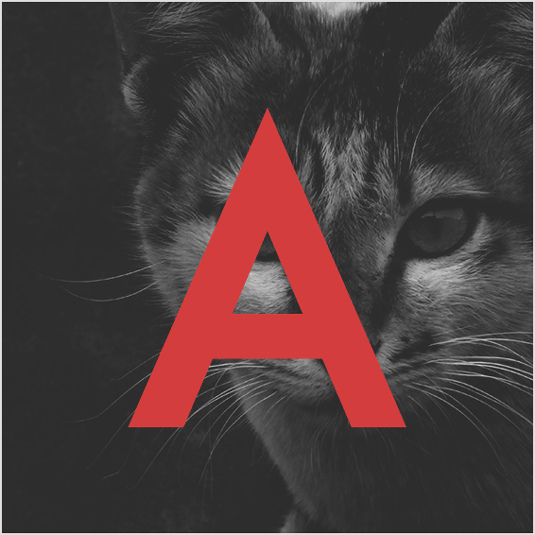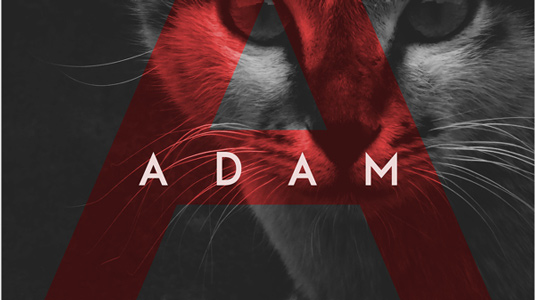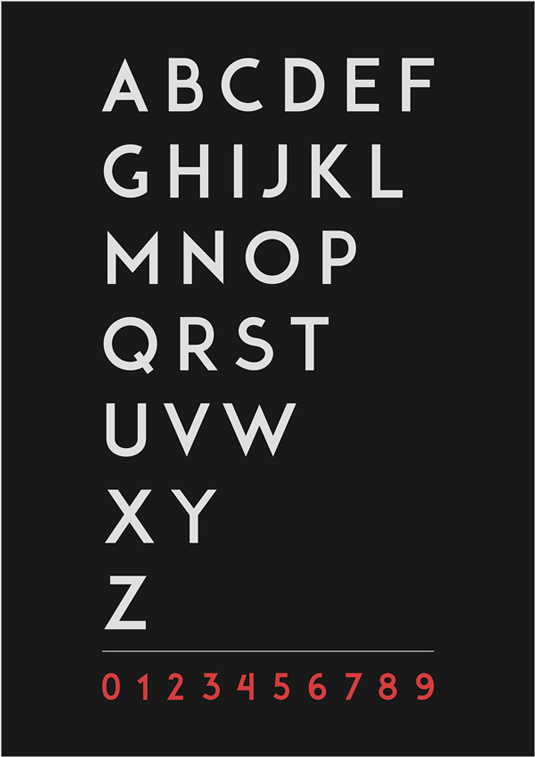
Font of the day: Adam
Every day we showcase the best fonts on the web. Today it's Adam by Shrenik Ganatra, which is totally free to download!
Adam by Shrenik Ganatra
Shrenik Ganatra is the designer behind today's font of choice, Adam. Based in Mumbai, the independent artist comments on Behance: "Adam is an all caps, sans serif typeface inspired by Futura. The sharp, clean appearance makes it a suitable typeface for headlines, posters, titles and captions. It consists of 227 glyphs and is free for both personal and commercial use."